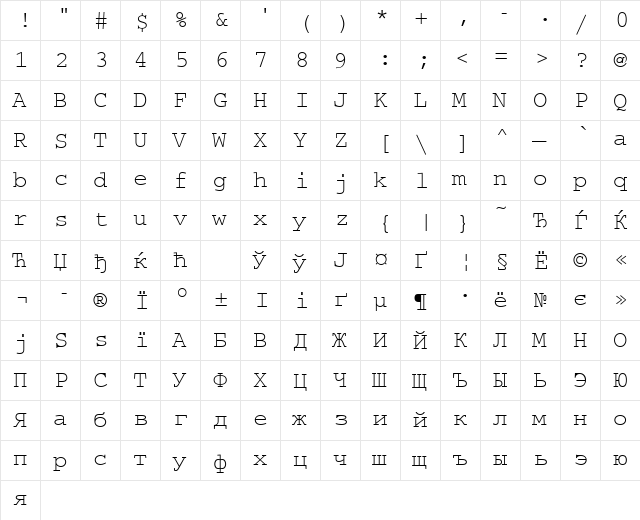
CourierMCY Regular
Design Context for CourierMCY Typeface
CourierMCY brings the precise, column-aligned rhythm of monospaced typography to designs that value technical clarity and systematic order.
Well-suited to data-driven dashboards, coding tutorials, and any design that wants to reference the world of programming.
Pro Tip: Use CourierMCY with slightly increased line-height for extended reading — fixed-width spacing can feel dense in longer passages without extra breathing room.